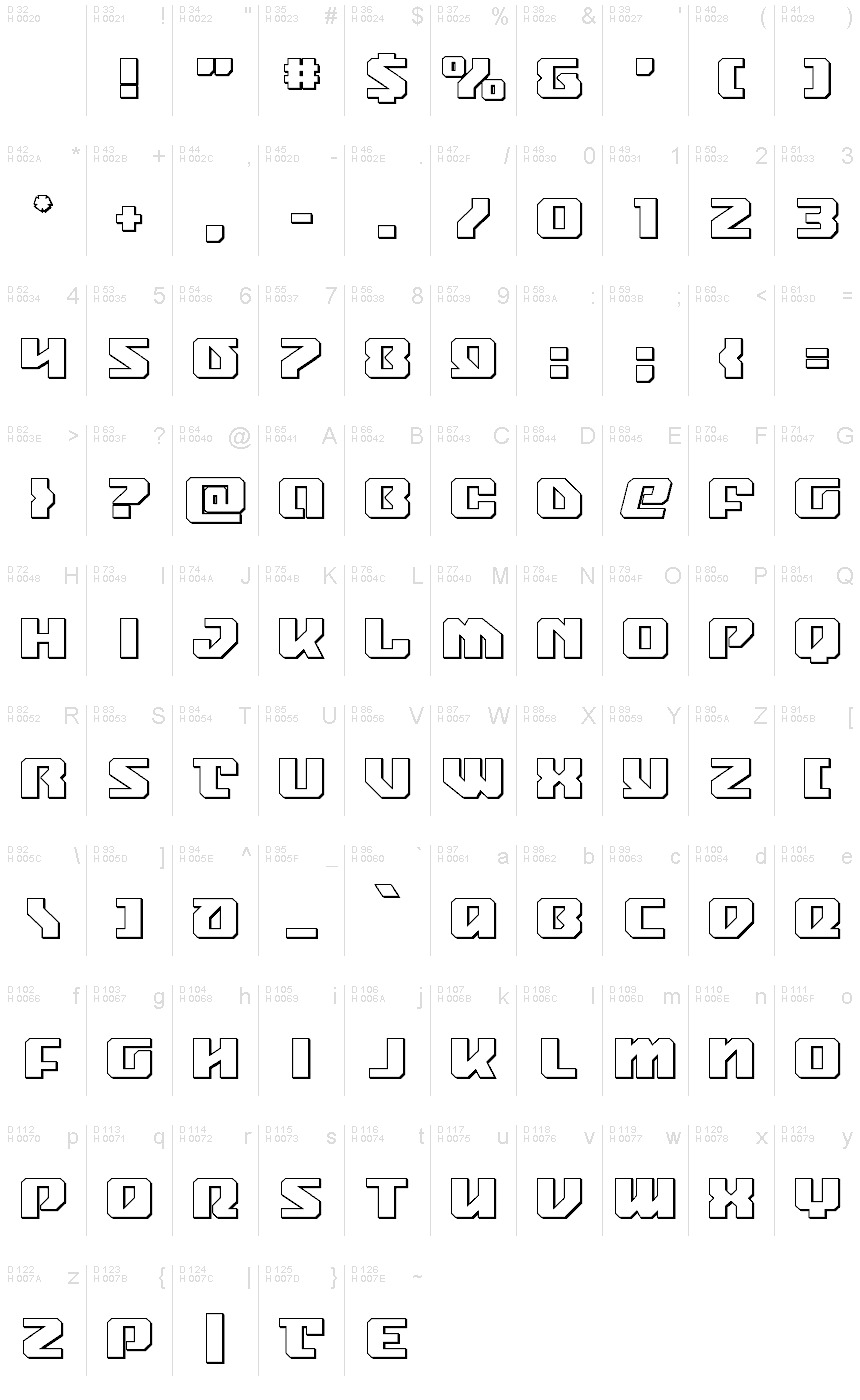
Legacy Cyborg 2 3D
Legacy Cyborg 2 3D font by Iconian Fonts is a 3D futuristic bold display font with an expanded structure and techno-inspired style. This mechanical geometric typeface sports angular and structured letterforms whose appearance combines the beauty of science fiction with technological advancements.
Free Legacy Cyborg 2 3D is perfect for sci fi posters, book covers, technology collections covers, magazine themes, video game titles, social media promo posts, titles for movies and series, creative branding projects and logo designs.